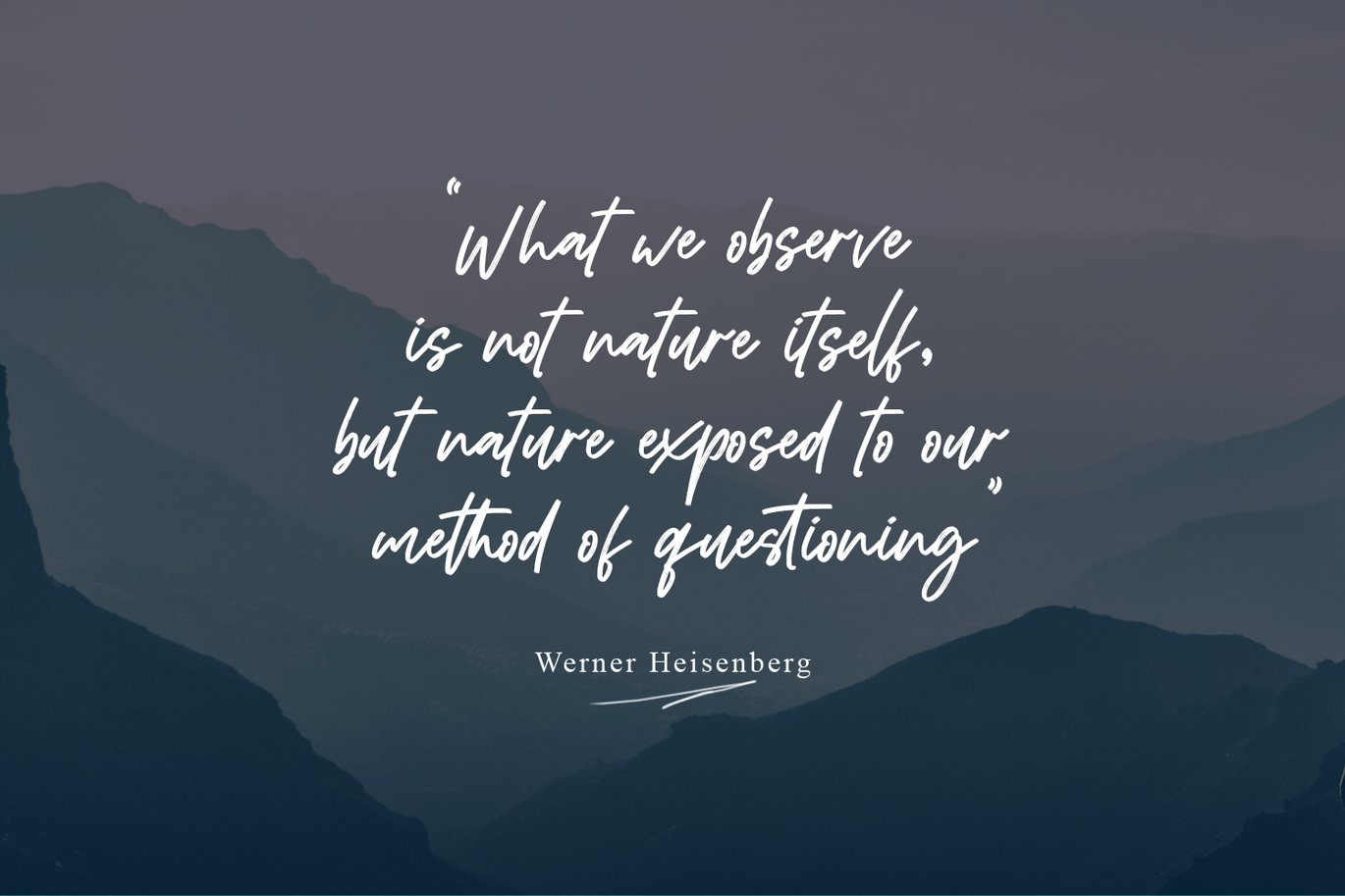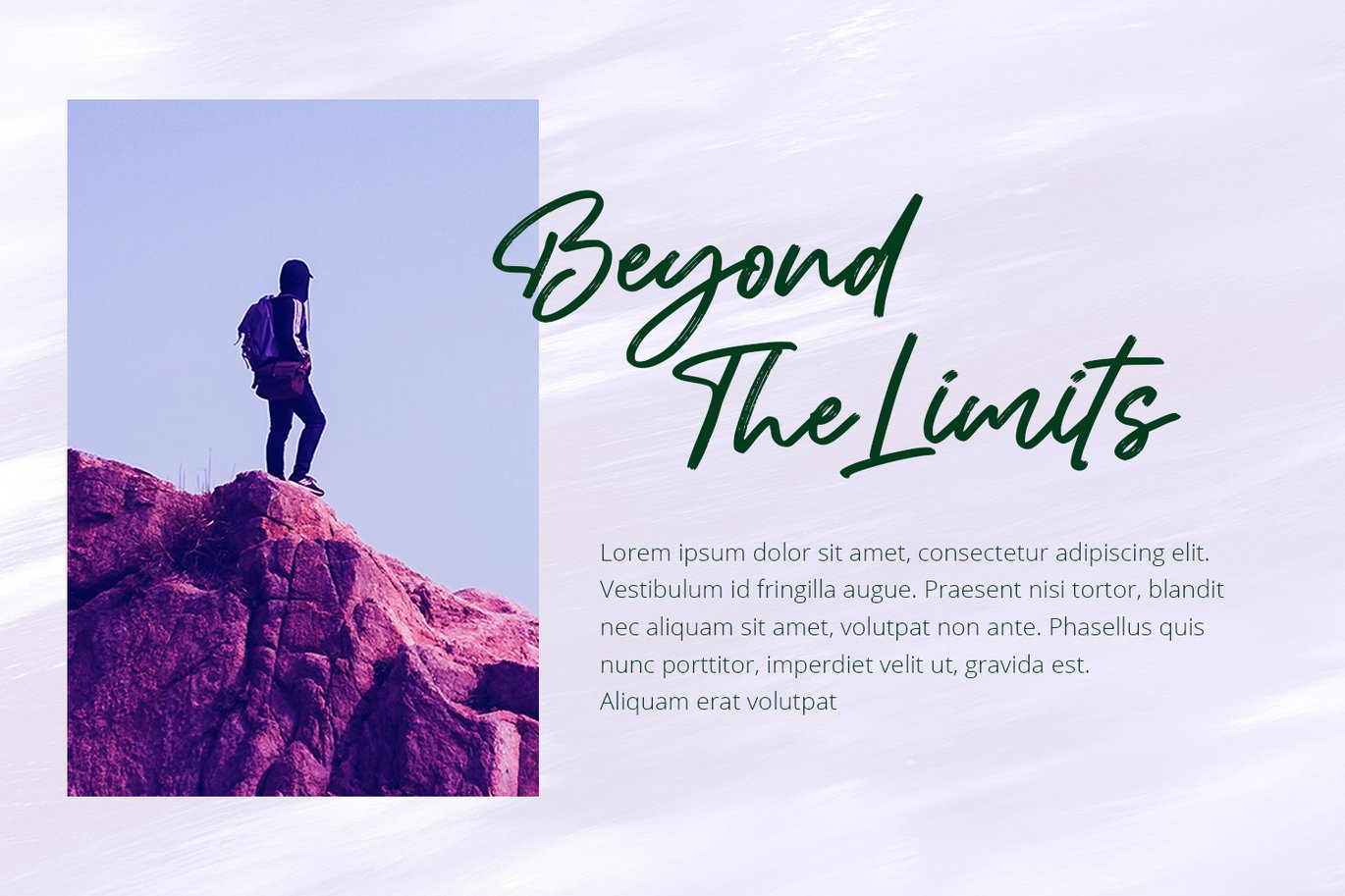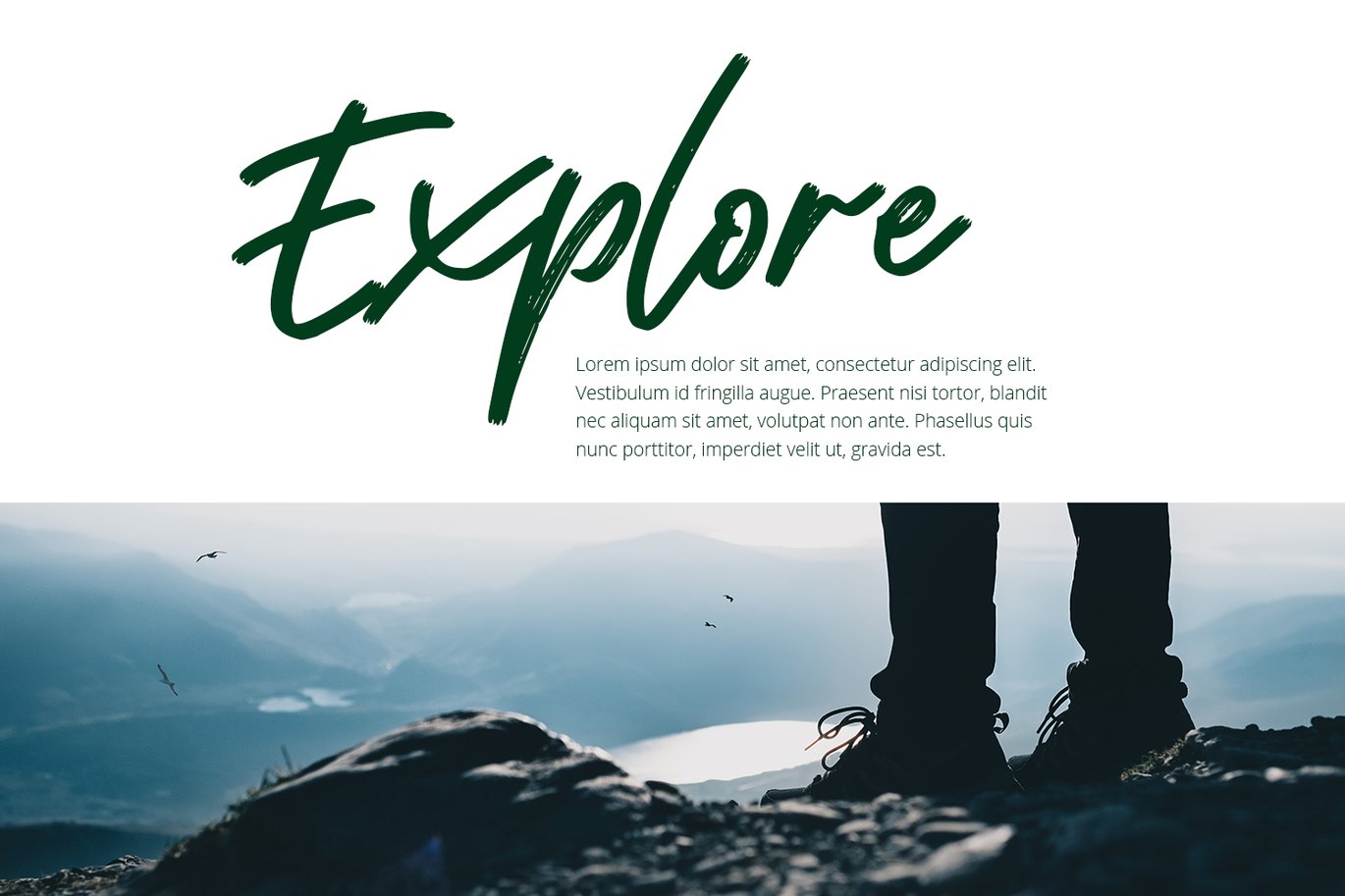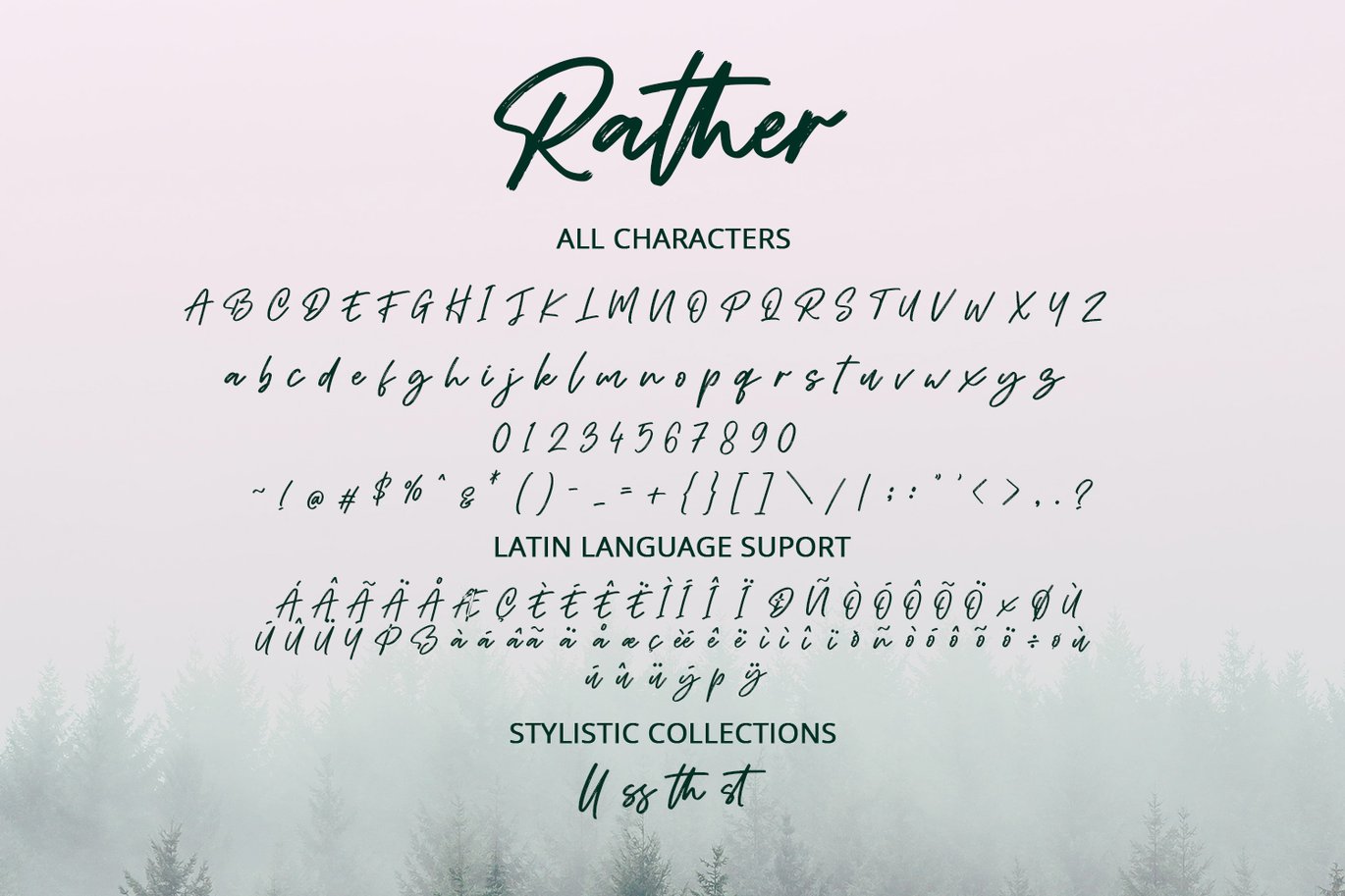
Rather – Brush Font
Rather is a classy brush font. Made for any professional project branding. Every letter has a unique and beautiful touch.
- Beautiful Ligatures
- Numerals and Punctuation